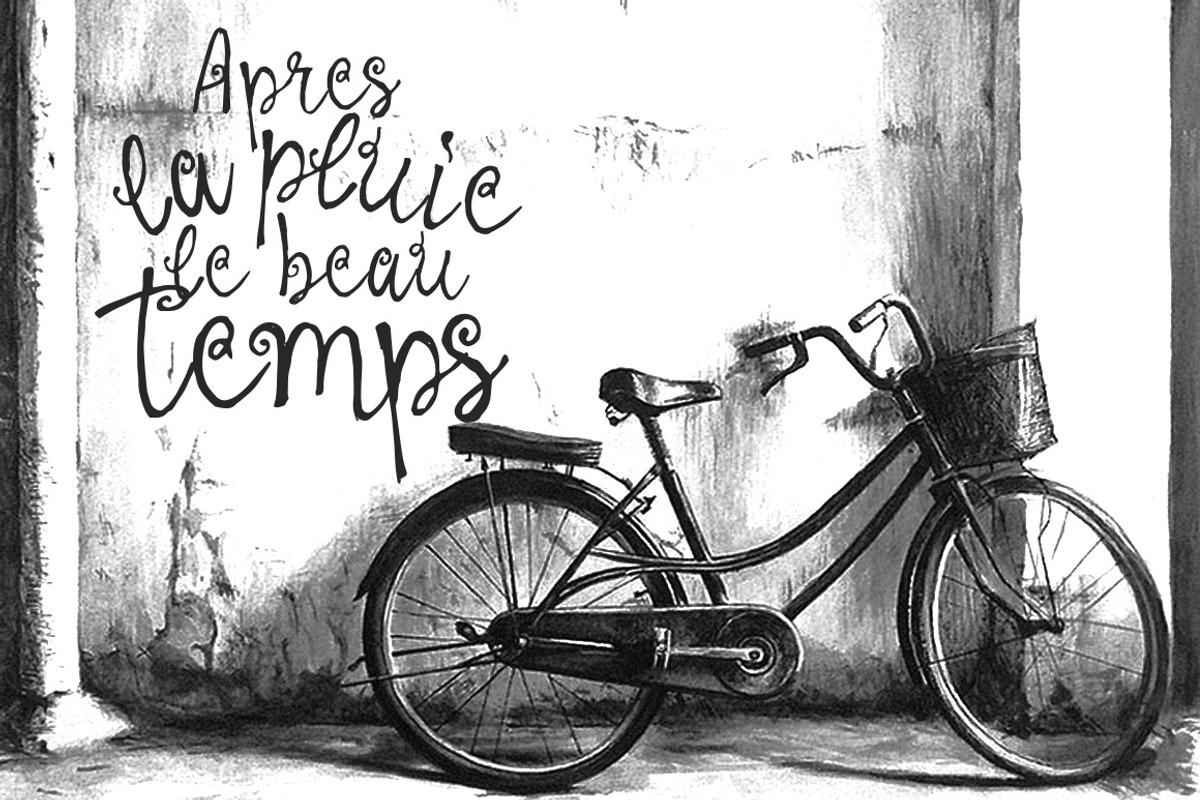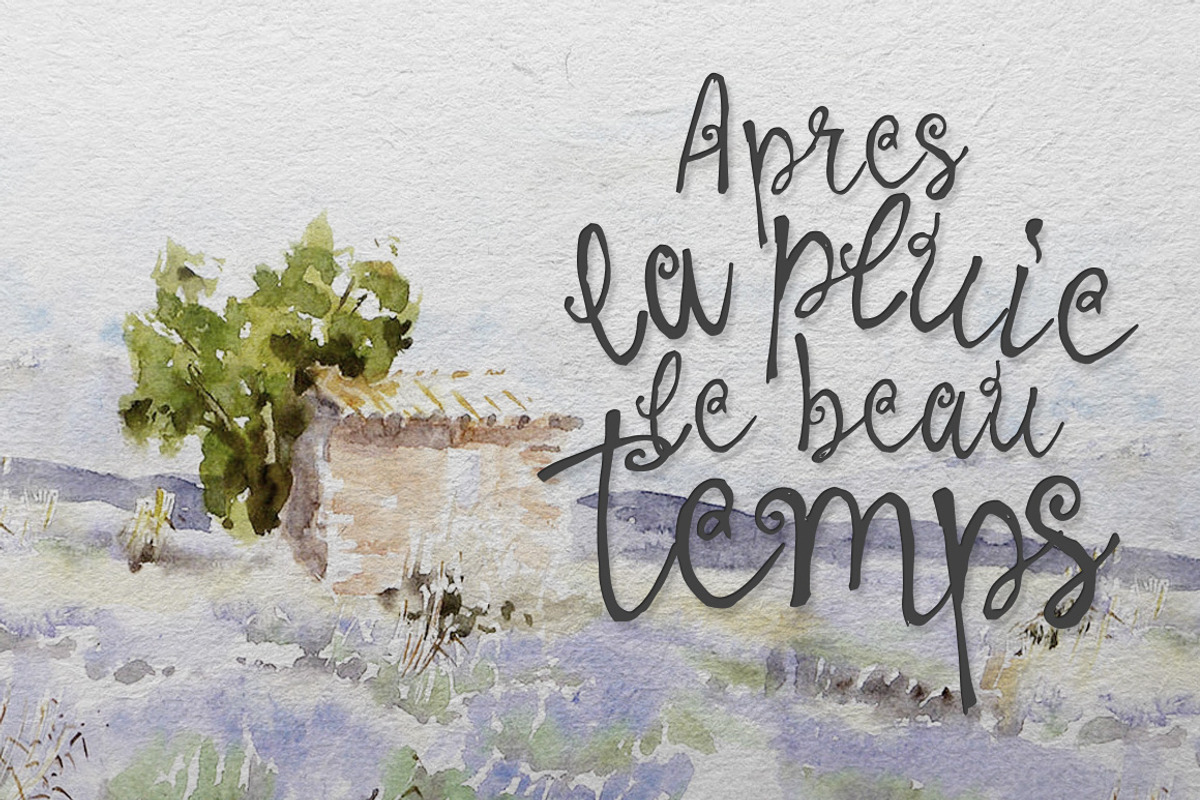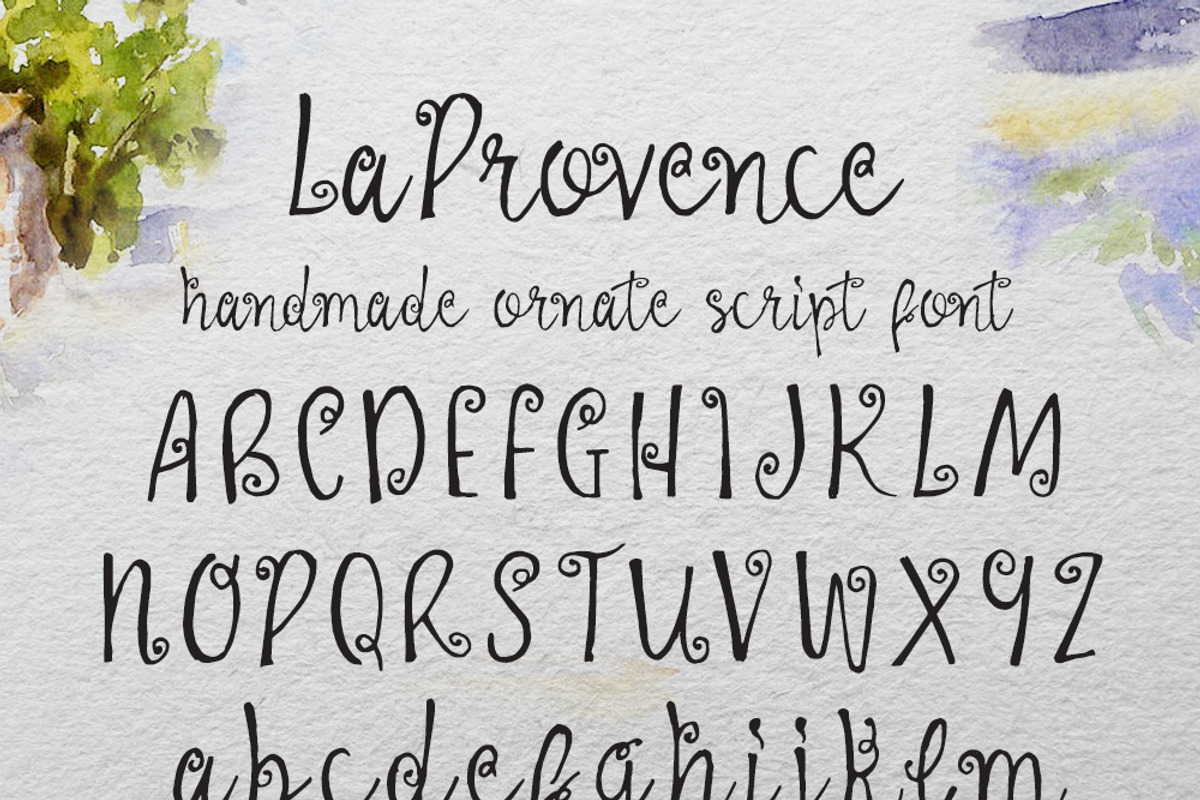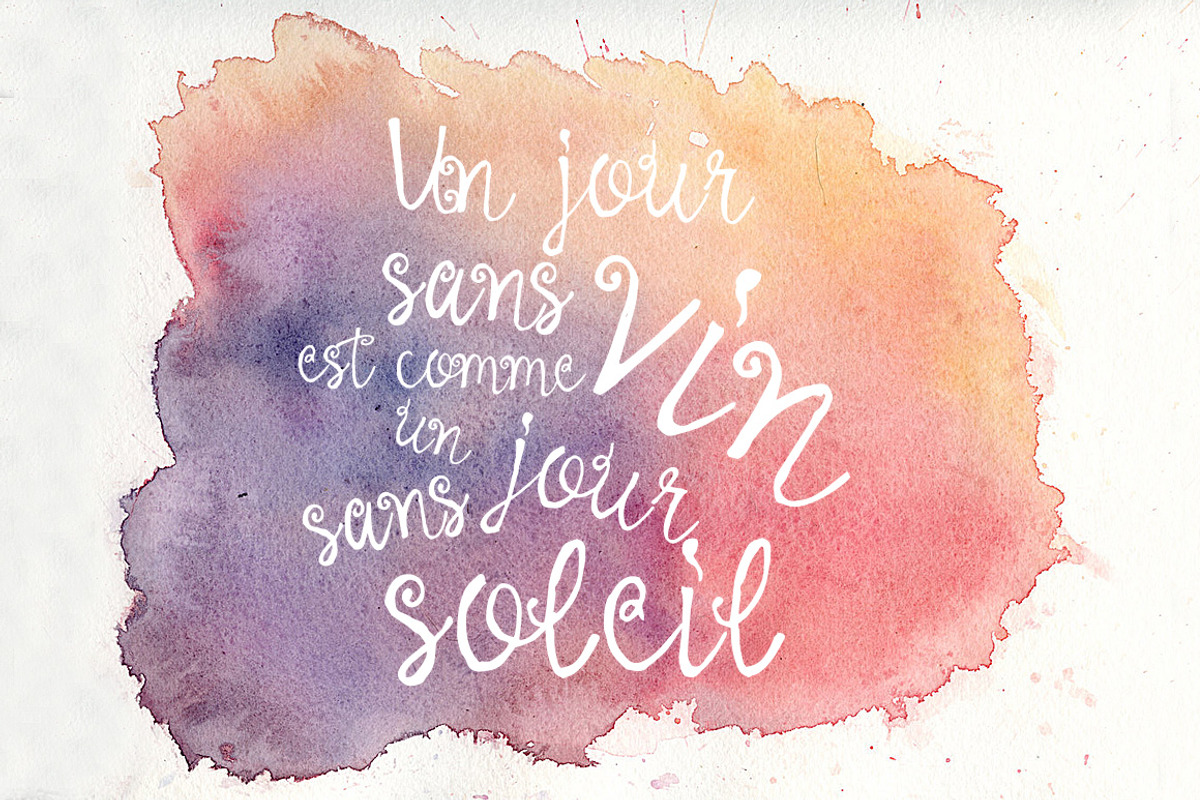
La Provence Font
La Provence Font by DesignSomething is a font selected for branding, posters, packaging, typography.
- This font contains uppercase, lowercase and multilingual glyphs.
Why La Provence Font is worth a look
La Provence Font by DesignSomething fits naturally into Branding, posters, packaging, typography.